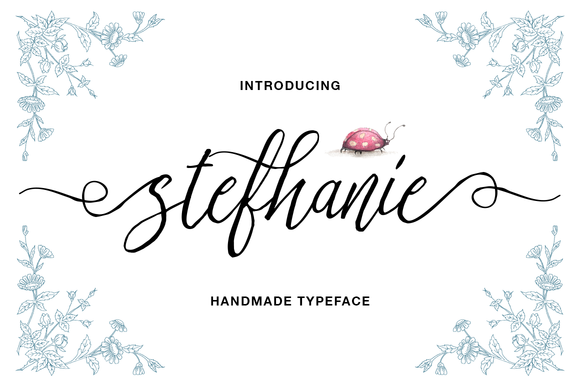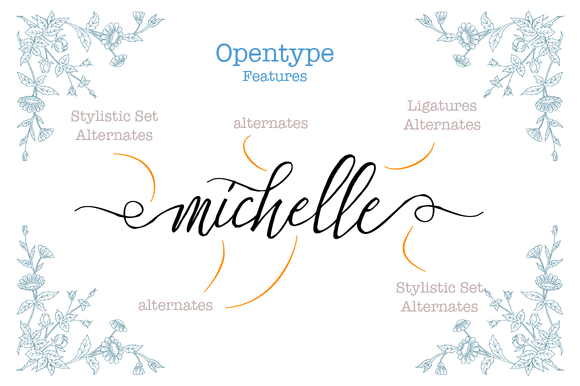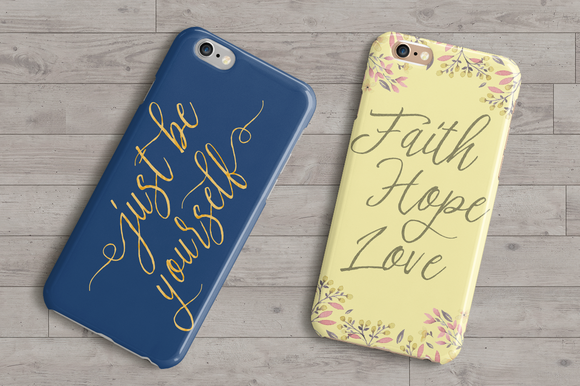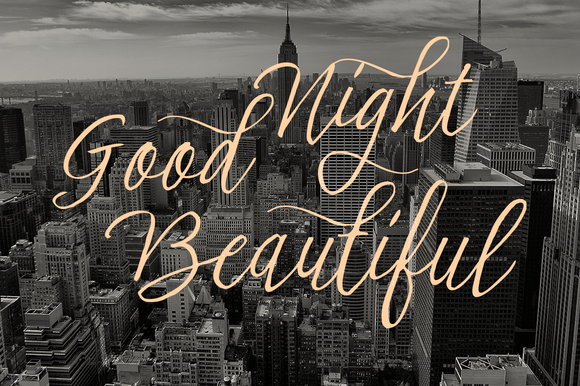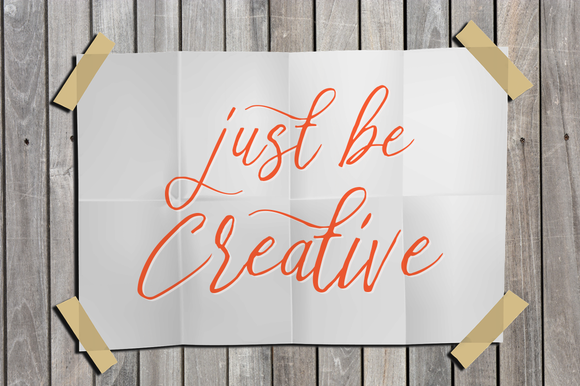
HomeScript FontsStefhanie Font Script Fonts Stefhanie Font FacebookXPinterestWhatsApp Stefhanie Font Poster 2 Stefhanie Font Poster 3 Stefhanie Font Poster 4 Stefhanie Font Poster 5 About Stefhanie Font Stefhanie Typeface is a beautiful handmade script that has natural looks. DOWNLOAD NOW People also explored Lione Font Rafa Font Peekaboo Freeman Font Sultans Font Stitch Font Coldays Font Angelina Beautiful Font Chellin Font 332 0 TagsStefhanie Font Previous articlePainting Script FontNext articleMontagne Font LEAVE A REPLY Cancel reply Comment: Please enter your comment! Name:* Please enter your name here Email:* You have entered an incorrect email address! Please enter your email address here Website: Save my name, email, and website in this browser for the next time I comment. Personal Use Free Clumed Personal Use Free Read more about this font Browie Personal Use Free Read more about this font Neuropol Personal Use Free Read more about this font Welcome Creative Personal Use Free Read more about this font BLOG Free Fonts Risk: Why Free Fonts Can Be Dangerous for Designers Free Fonts Risk: Why Free Fonts Can Be Dangerous for Designers Using free fonts is a common practice in web and graphic design. However, the... Modern Sans-Serif Fonts That Brands Love in 2025 How to Cut Any Font on Cricut: Convert a Font to SVG (Free) Fonts That Capture the Spirit of New York City